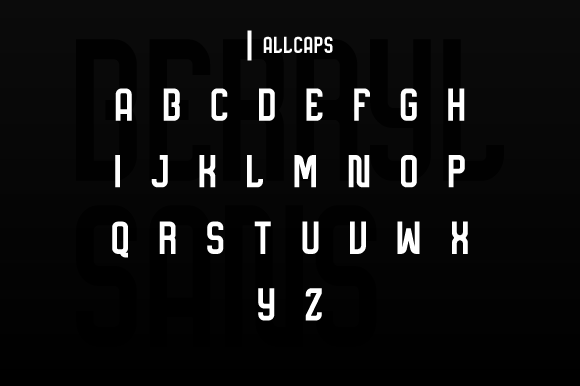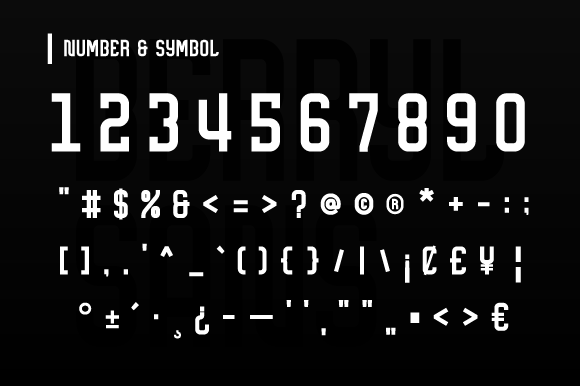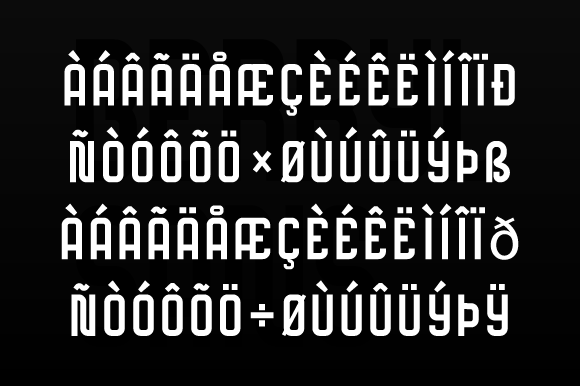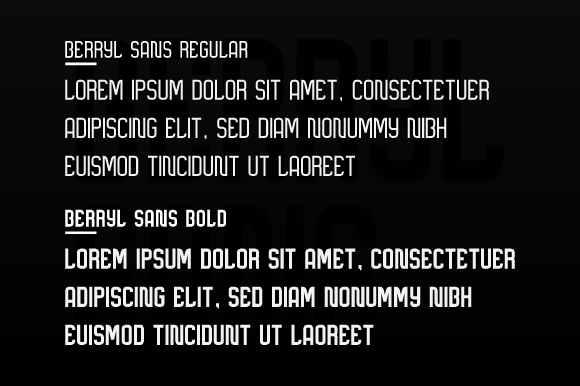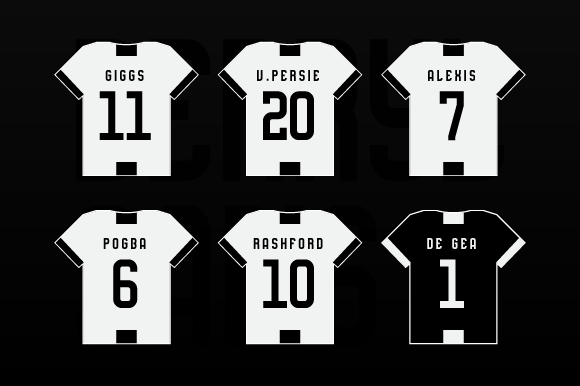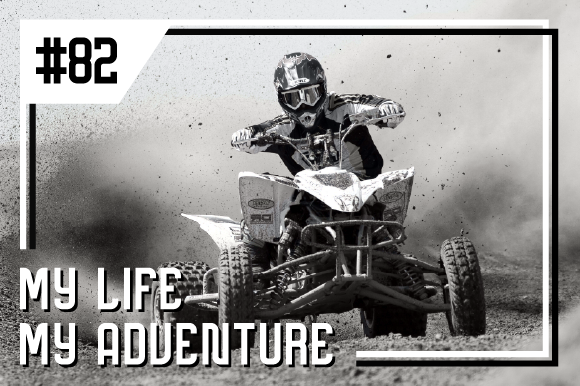
Berryl Sans Family Font: Elevate Your Designs with a Strong and Sophisticated Typeface
Are you looking for a font that exudes strength, sophistication, and modernity? Look no further than the Berryl Sans Family Font. This versatile sans serif font family is designed to help you create stunning designs that command attention. With its sturdy and uncompromising style, Berryl Sans is perfect for a wide range of applications, from branding and logos to sports, magazines, and films.
Inspired by Diamonds: A Font that’s Truly Unique
The Berryl Sans font was inspired by the elegance and luxury of diamonds. Its controlled letter forms and modern touches evoke the feeling of high-end quality, making it perfect for designers who want to create premium designs. The font’s sturdy style is balanced by smooth curves, creating a unique and dynamic look that’s sure to impress.
A Balance of Hard Lines and Smooth Curves
One of the standout features of the Berryl Sans font is its balance of hard lines and smooth curves. This balance creates a sense of tension and elegance, making it perfect for designs that require a sense of sophistication. Whether you’re creating a logo, heading, or body text, Berryl Sans is up to the task.
Two Styles, Endless Possibilities
The Berryl Sans font family comes in two styles: regular and bold. These two styles can be combined perfectly, giving you the opportunity to create multiple unique designs in an instant. The regular style is perfect for body text and headings, while the bold style is ideal for creating striking titles and emphasis.
Dynamic and Authoritative: Perfect for a Wide Range of Applications
Each style in the Berryl Sans font family can stand on its own, dynamic and authoritative in its own right. This makes it perfect for a wide range of applications, including:
- Branding: Create a strong and sophisticated brand identity with Berryl Sans.
- Logos: Design a logo that commands attention and exudes modernity.
- Sports: Add a touch of elegance and sophistication to your sports designs.
- Magazines: Create a premium feel for your magazine with Berryl Sans.
- Films: Add a touch of glamour and sophistication to your film designs.
Full Range of Applications: Explore a Whole Host of Design Possibilities
The different weights in the Berryl Sans font family give you full range to explore a whole host of design possibilities. Whether you’re creating a simple logo or a complex design, Berryl Sans has got you covered. The font’s versatility and range make it perfect for designers who want to push the boundaries of creativity.
Give Your Project a Modern Feel
The Berryl Sans font family gives any project a real modern feel. Its sleek and sophisticated design makes it perfect for designers who want to create contemporary designs that stand out from the crowd. Whether you’re working on a personal project or a client brief, Berryl Sans is sure to impress.
In conclusion, the Berryl Sans Family Font is a strong and sophisticated sans serif font that’s perfect for designers who want to create stunning designs. With its sturdy and uncompromising style, balance of hard lines and smooth curves, and versatility, Berryl Sans is ideal for a wide range of applications. Whether you’re creating a logo, branding, or magazine, Berryl Sans is sure to elevate your designs to the next level.